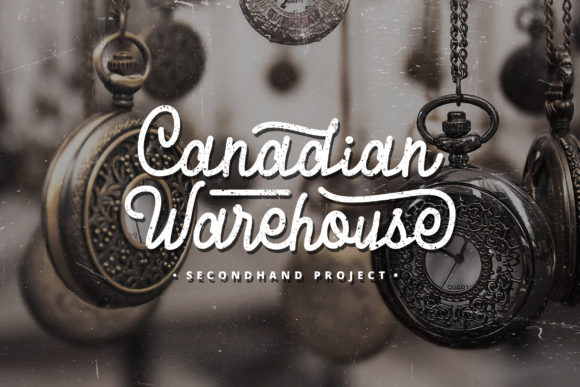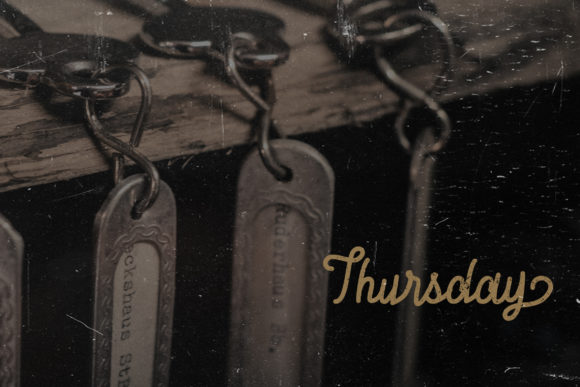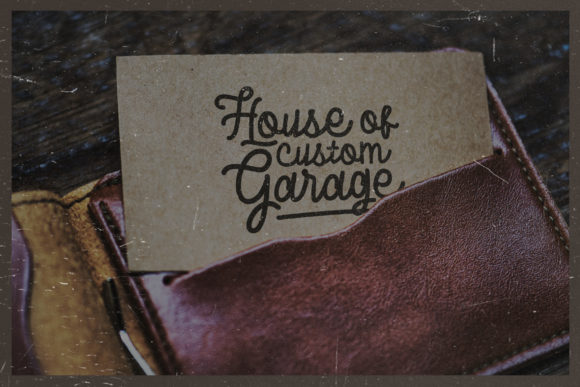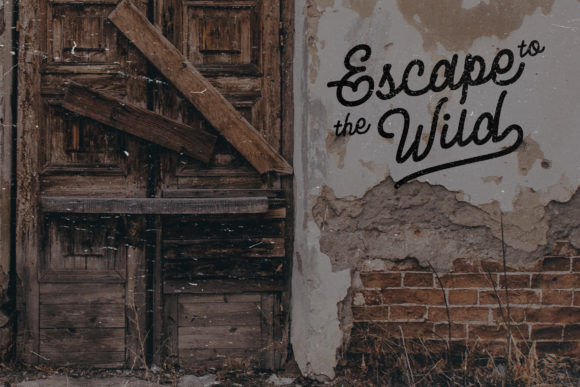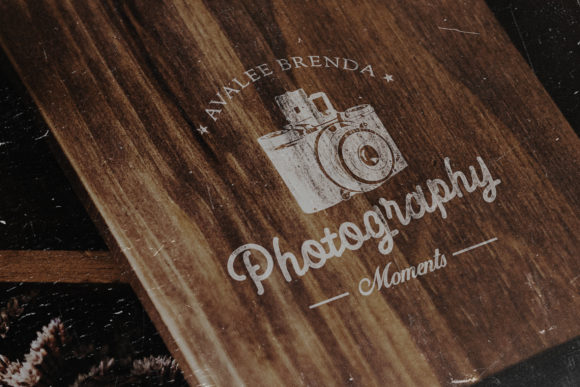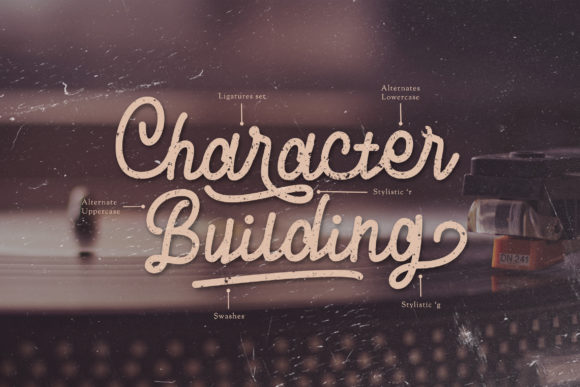
Introduction to Baratayuda Font
Inspired by classic posters, Baratayuda is a stunning and elegant handwritten font with a bold twist.
Use it to add a vintage charm to any design project .
Key Features of Baratayuda Font